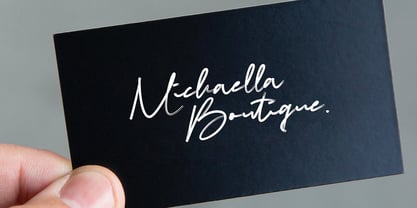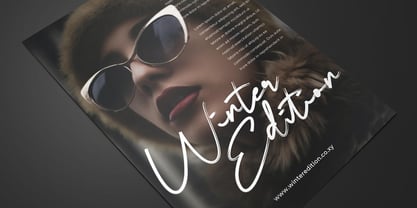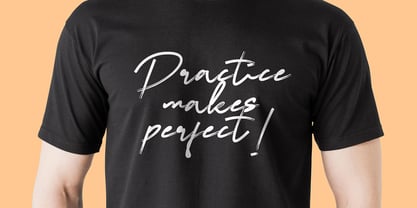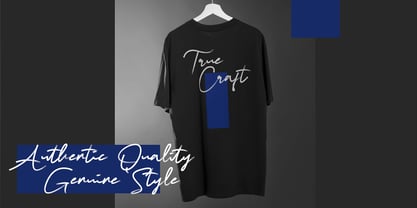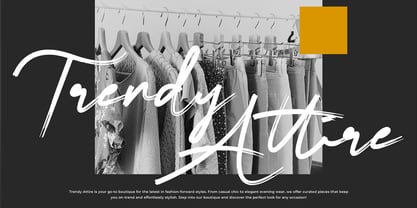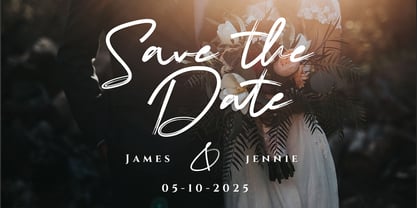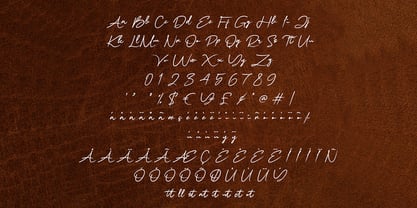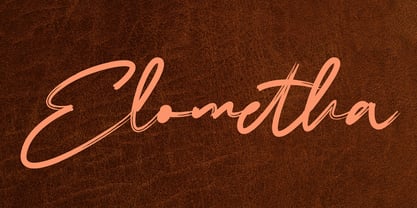
Elometha
by Jadatype
The Elometha Font Family was designed by Jada Akbal and published by Jadatype. Elometha contains 1 styles.
Elometha is a font with a stylish brush handwritten. suitable for social media, branding, logotype, products, advertisement, and so on. contains standard English letters, numbers, punctuation, and several accents that support multilingualism.